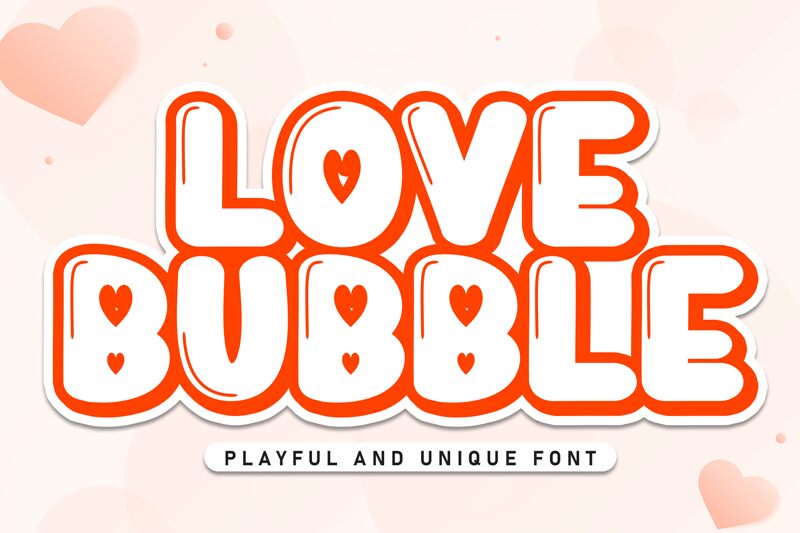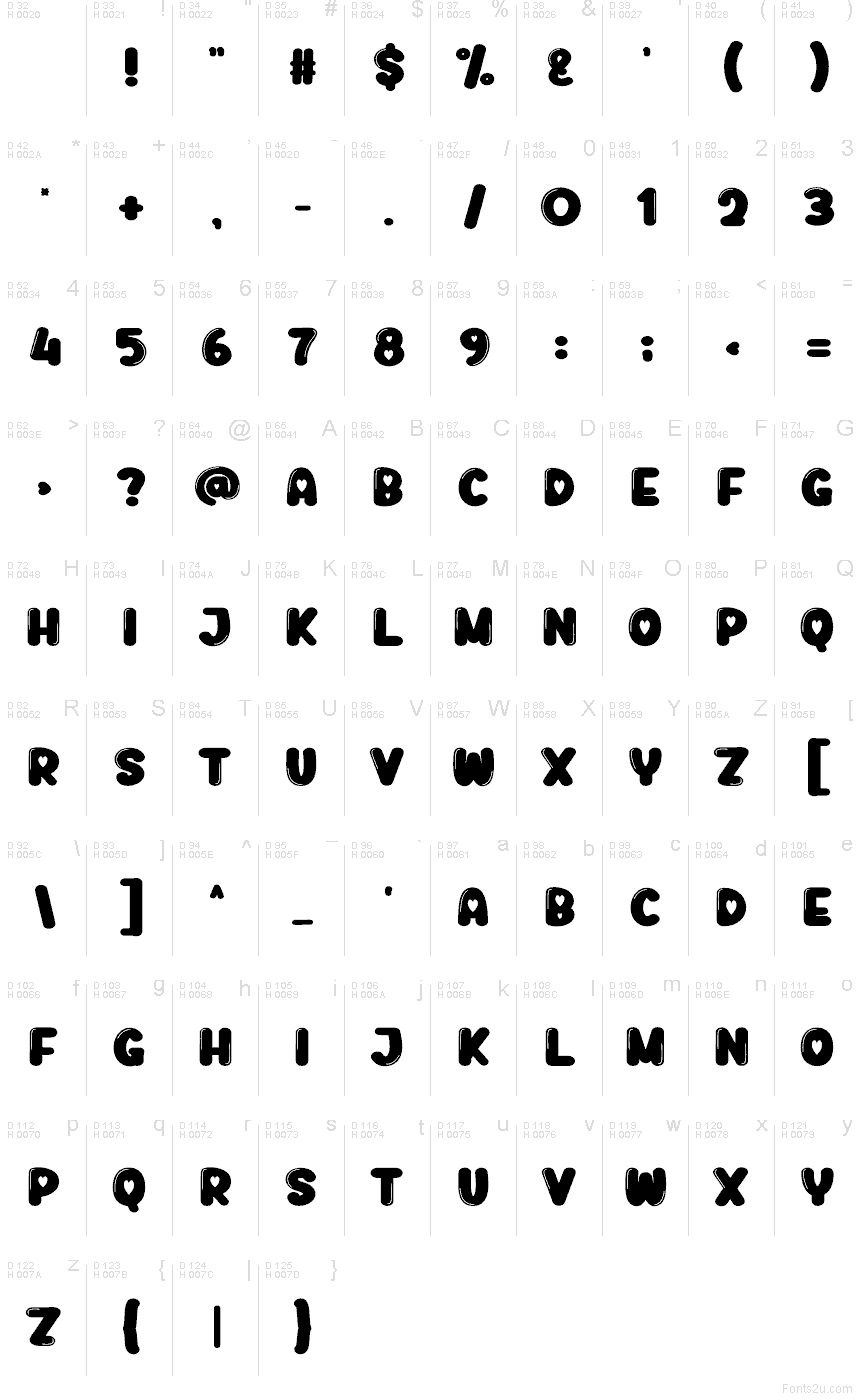
Love Buble
Love Buble font by Scratchones is a free Valentine holiday decorative typeface that looks like it’s been piped onto the page in glossy chocolate and candy-pink icing. Chunky, rounded letters with playful heart cut-outs and soft curves give it a squishy, huggable feel that reads instantly as “cute romance” without feeling stiff or formal.
Using Love Buble, you can bring cozy charm to Valentine cards, party invitations, kids’ crafts, classroom decorations, social media posts, stickers, and candy or gift packaging. This free font shines at larger sizes where its heart details can breathe; pair it with a clean sans serif for small captions so the bubbly shapes stay the star.